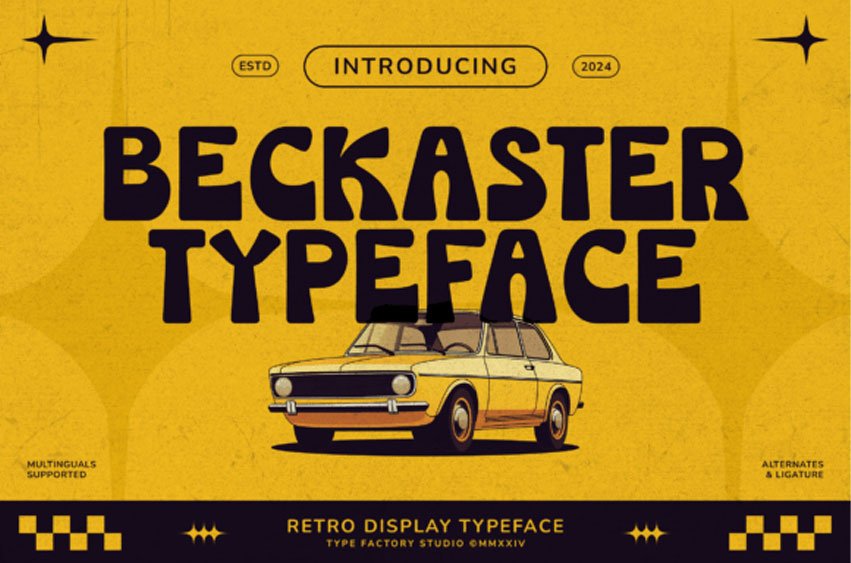
Beckaster Font is a retro display typeface inspired by 70s automotive graphics, vintage posters, and classic roadside signage. It features bold, rounded letterforms with soft curves and playful proportions that create a strong nostalgic atmosphere.
The thick strokes and slightly irregular shapes give Beckaster a handcrafted feel while maintaining solid readability for headlines. Its distinctive character makes it ideal for large-scale typography where personality and visual impact are essential.
Beckaster works well for retro branding, merchandise design, poster layouts, album covers, packaging, social media graphics, signage, and editorial headlines.
The font includes uppercase, lowercase, numerals, punctuation, alternates, ligatures, and multilingual support.